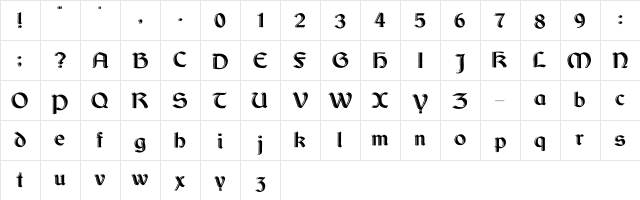
Dundalk_HandDrawn Normal Free Font
Dundalk_HandDrawn Normal
Design Context for Dundalk_HandDrawn
Dundalk_HandDrawn flows with the natural rhythm of handwritten lettering, making it ideal for designs that call for warmth and personal expression.
Font Pairing: Combine Dundalk_HandDrawn with a simple geometric sans for maximum contrast - the tension between flowing curves and clean structure is a classic typographic pairing.
Pro Tip: Use Dundalk_HandDrawn for short runs of text - names, titles, or taglines. Extended body copy in script faces tires the eye quickly.